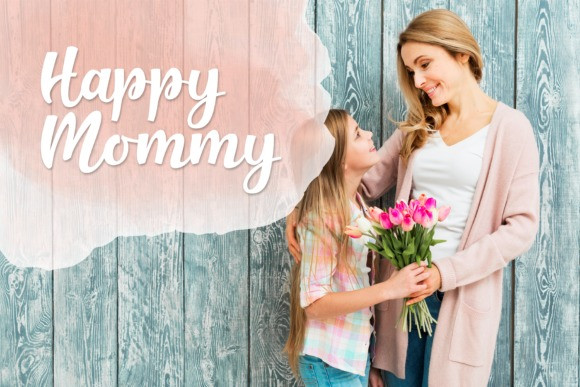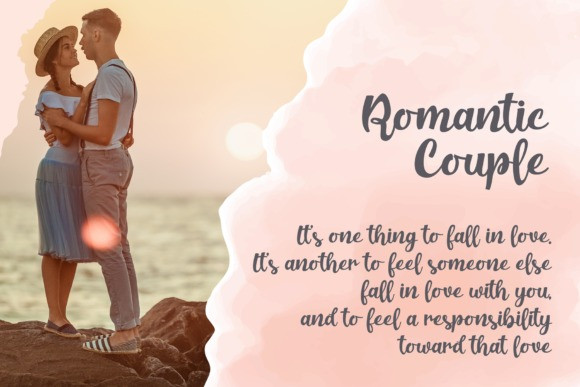
Mewskia Script Font
Mewskia Script Font | Modern Calligraphy Font, from Gracetypestudio, suitable for any projects such as: logos, branding projects, homeware designs, product packaging, mugs, quotes, posters, shopping bags, t-shirts, book covers, name card, invitation cards, greeting cards, label, photography, watermark, special events, and all your other lovely projects that need a Modern Calligraphy script taste.